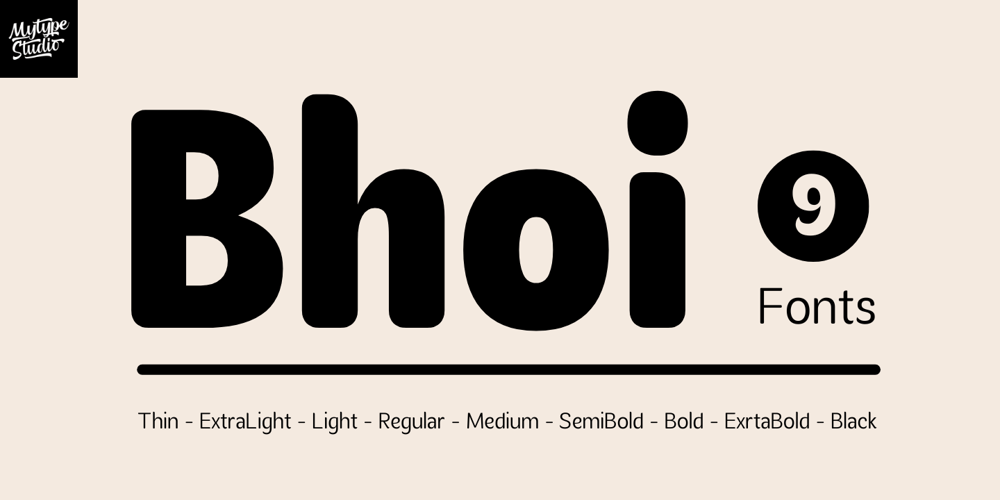
Bhoi Font Family was designed by Mhd Husaini and published by SimpleType Studios. Bhoi contains 9 styles and family package options. Meet Bhoi, a fun yet professional rounded sans-serif font designed for both bold headlines and smooth body text. With 9 weights ranging from Thin to Black, Bhoi offers maximum versatility for any creative project. Whether you’re designing branding, packaging, editorial layouts, or social media graphics, Bhoi’s friendly curves and clean lines make your text stand out effortlessly.Designed to be approachable, modern, and highly legible, Bhoi is perfect for food branding, children’s books, startups, and lifestyle designs. Add warmth and character to your typography with Bhoi’s soft edges and consistent proportions.Features:✔ 9 Weights (Thin to Black)✔ Smooth, Rounded Shapes✔ High Readability & Versatility✔ Perfect for Branding, Packaging, & Digital UseUnlock the charm of Bhoi and bring personality to your designs!